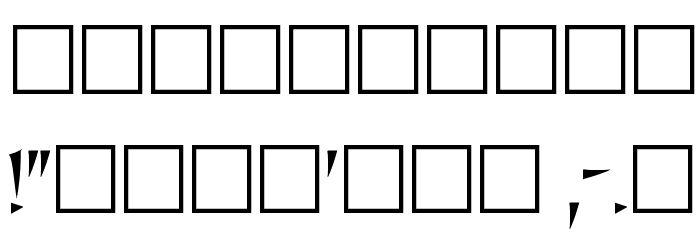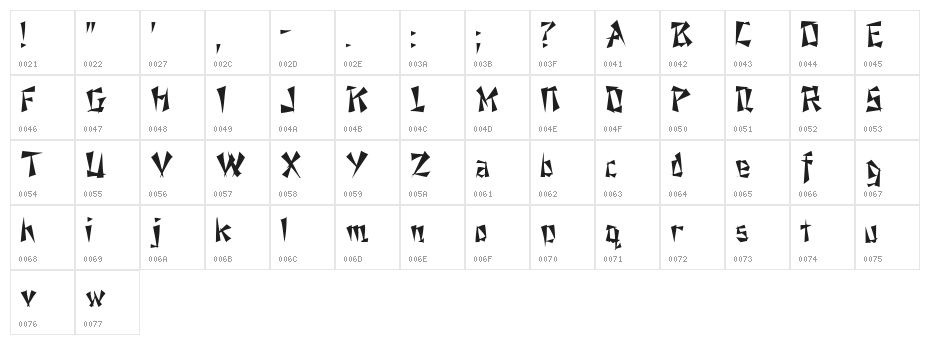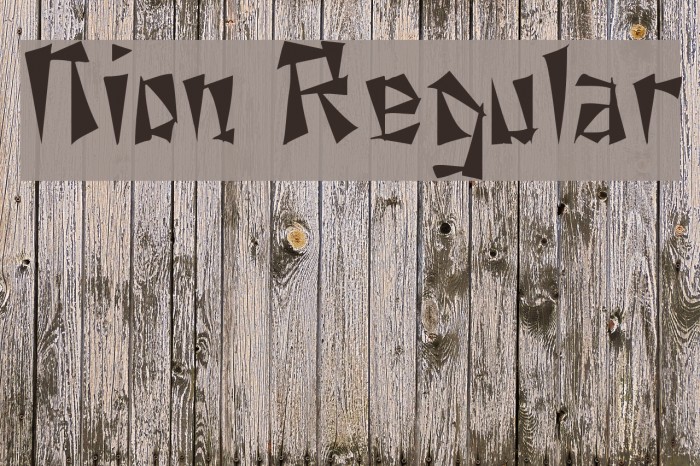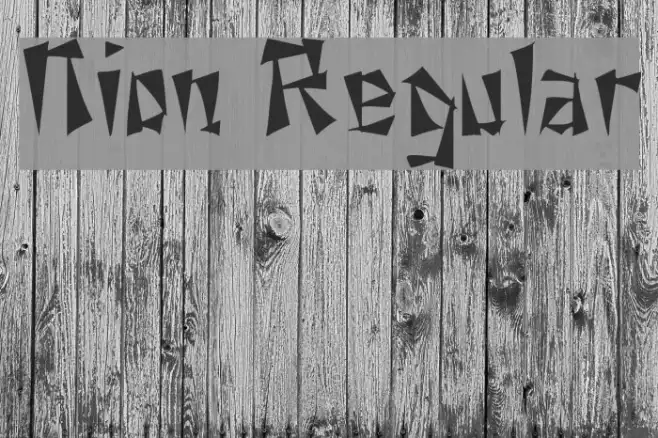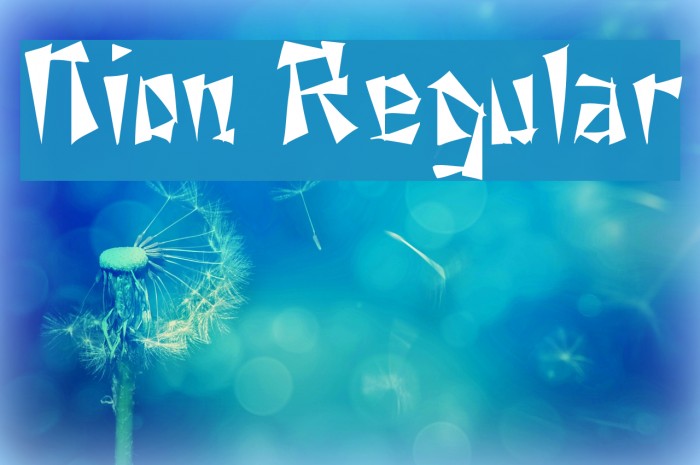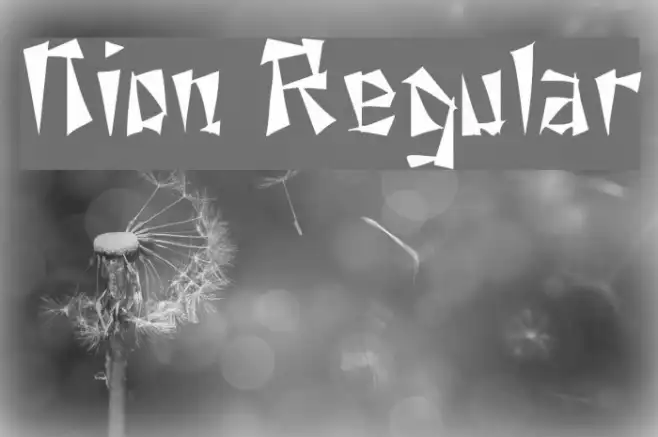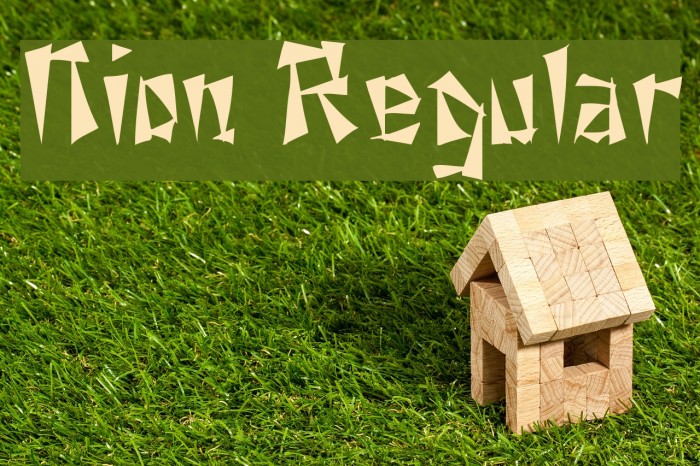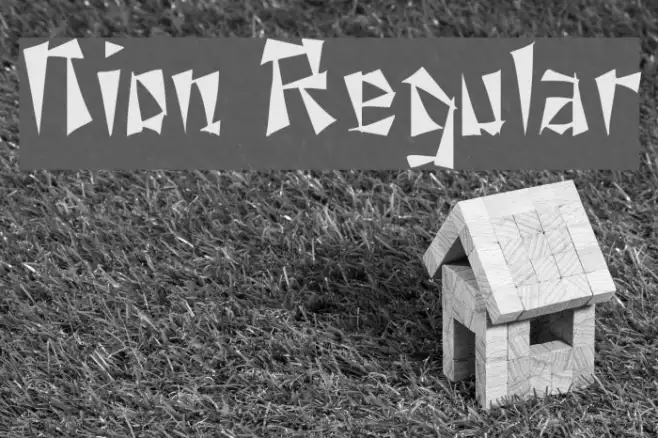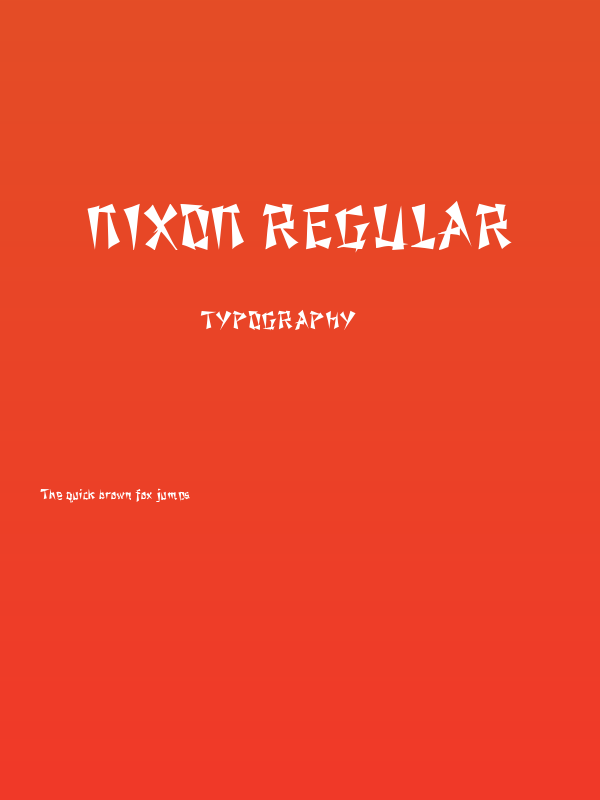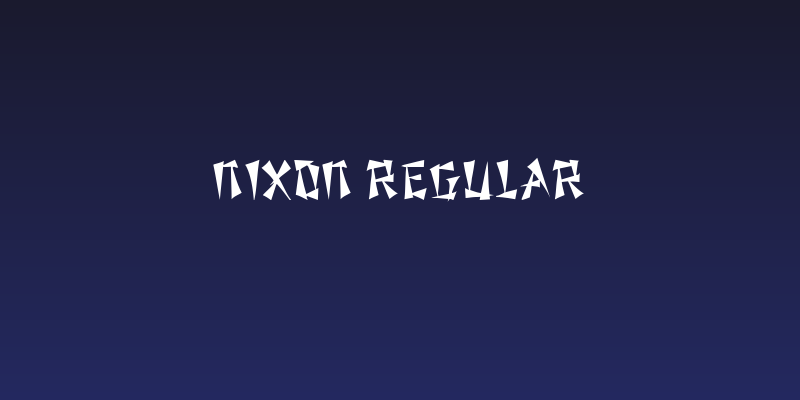
Nixon Regular Font
Nixon Regular Description
This font features a highly stylized and angular design, characterized by sharp edges and pointed terminals. The letters exhibit a dynamic and edgy appearance, with irregular shapes that create a sense of movement and energy. The uppercase and lowercase letters maintain a consistent style, with exaggerated angles and a bold presence. The numbers and special characters follow the same aesthetic, adding to the font's cohesive look. This font is ideal for projects that require a bold and unconventional statement, offering a unique visual impact.
| Proposed Projects | Perfect for album covers, posters, and branding that demands attention. |